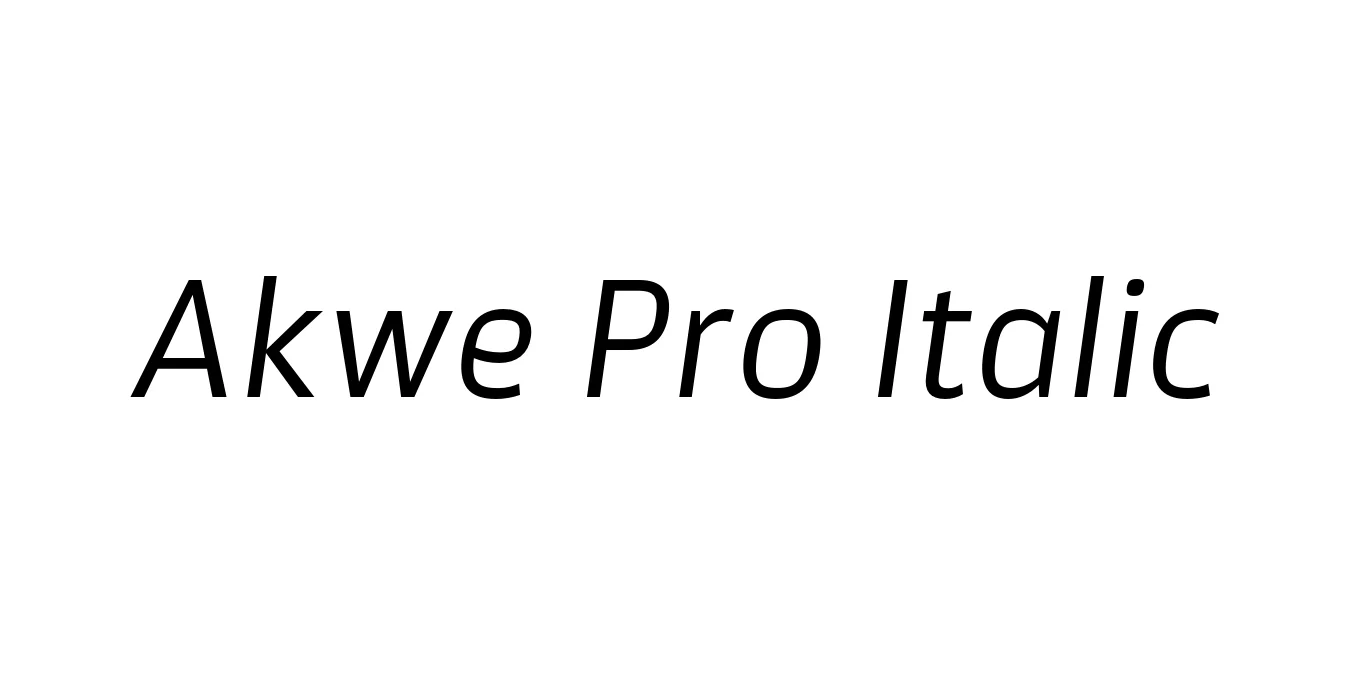
Akwe Pro Italic
Designed by Piotr Łapa
Akwe Pro Italic is a contemporary sans-serif typeface designed by Piotr Łapa, known for its harmonious balance between geometric structure and humanist characteristics. This italic variant introduces a subtle sense of motion and refined elegance, making it an essential tool for designers who need to establish clear visual hierarchies and sophisticated typographic contrast in professional layouts.
The Akwe Pro family was built to be highly versatile, offering exceptional legibility across a wide variety of applications. Its clean, modern aesthetic is coupled with a comprehensive character set, ensuring that the Italic weight performs seamlessly in both high-resolution print environments and low-contrast digital screens, maintaining its professional integrity and stylish flair throughout.
Akwe Pro Italic Best Uses
Ideal for creating modern, clean corporate identities and logo designs.
Excellent for magazines and books to provide emphasis and stylistic variation.
Perfect for user interfaces, headers, and digital body text for a modern feel.
Effective for advertising campaigns that require a sleek and professional look.